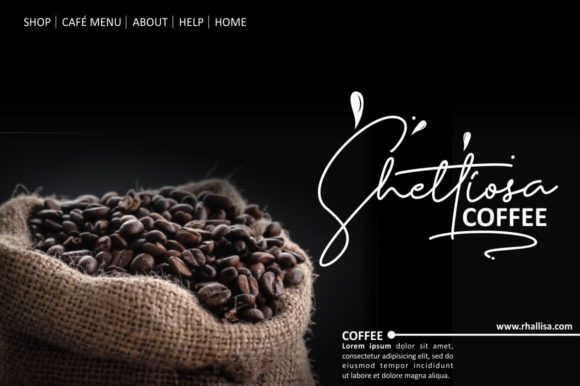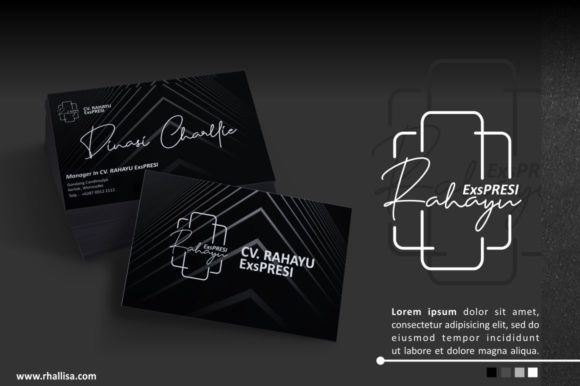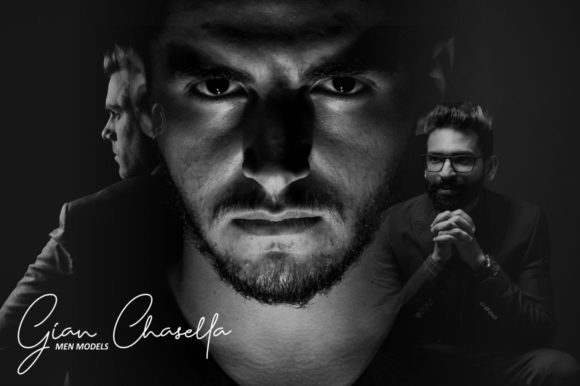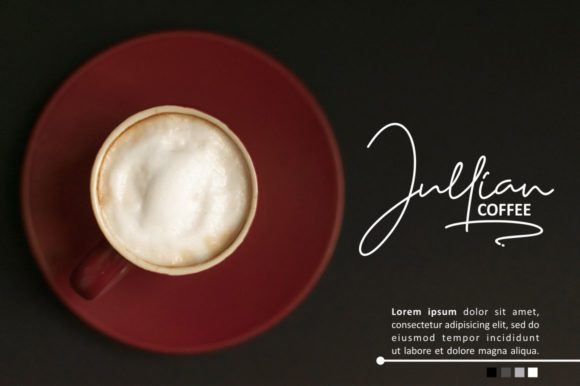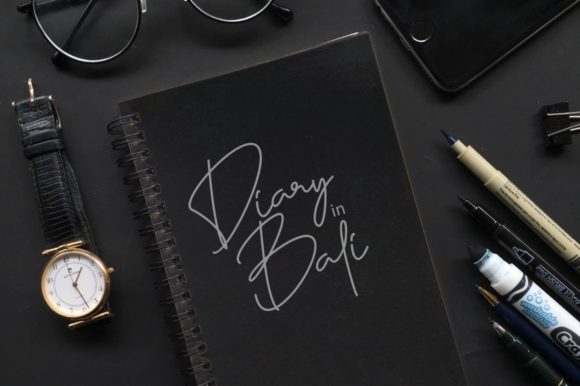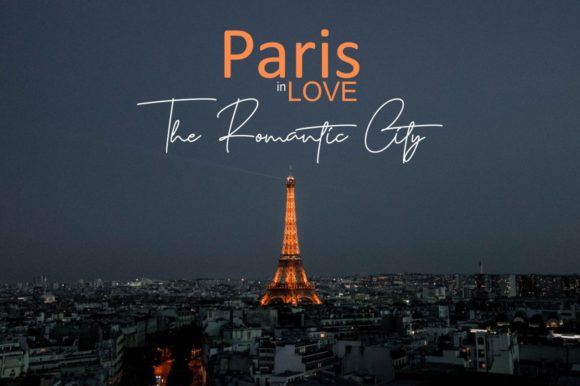
Introduction to Rhallisa Font
Rhallisa is a stylish and delicate handwritten font.
It has a clean, thin and smooth vibe and it will be a hit for any design that you want to add it to This font is PUA encoded which means you can access all of the glyphs and swashes with ease.
Key Features of Rhallisa Font
Why Choose Rhallisa Font?